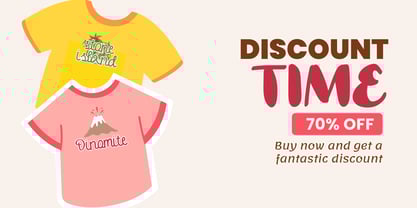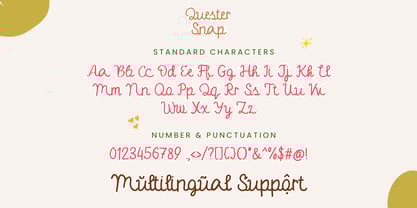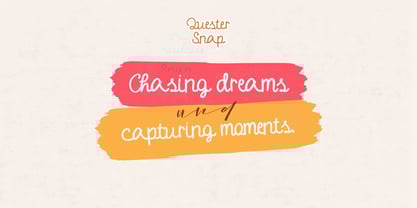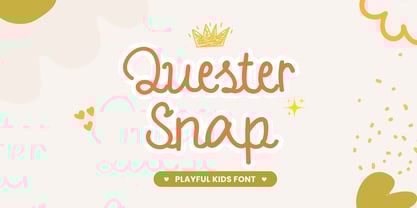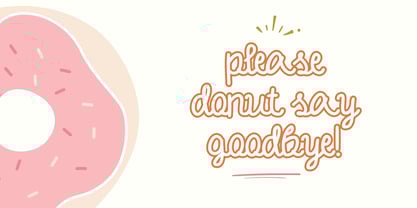
Quester Snap
La familia tipográfica Quester Snap fue diseñada por David Kasidi, Hasna Viola y publicada por Violatype. Quester Snap contiene 1 estilos.
Quester Snap is a modern handwritten font with a natural, casual flow. Crafted with smooth curves and clean strokes, this font is perfect for quotes, branding, logo design, wedding invitations, product packaging, social media posts, and more.
Whether you're working on a DIY project or professional design, Quester Snap adds a personal and stylish touch to every word. It's ideal for crafters, designers, and creatives looking for a versatile script font that’s easy to use and full of character.